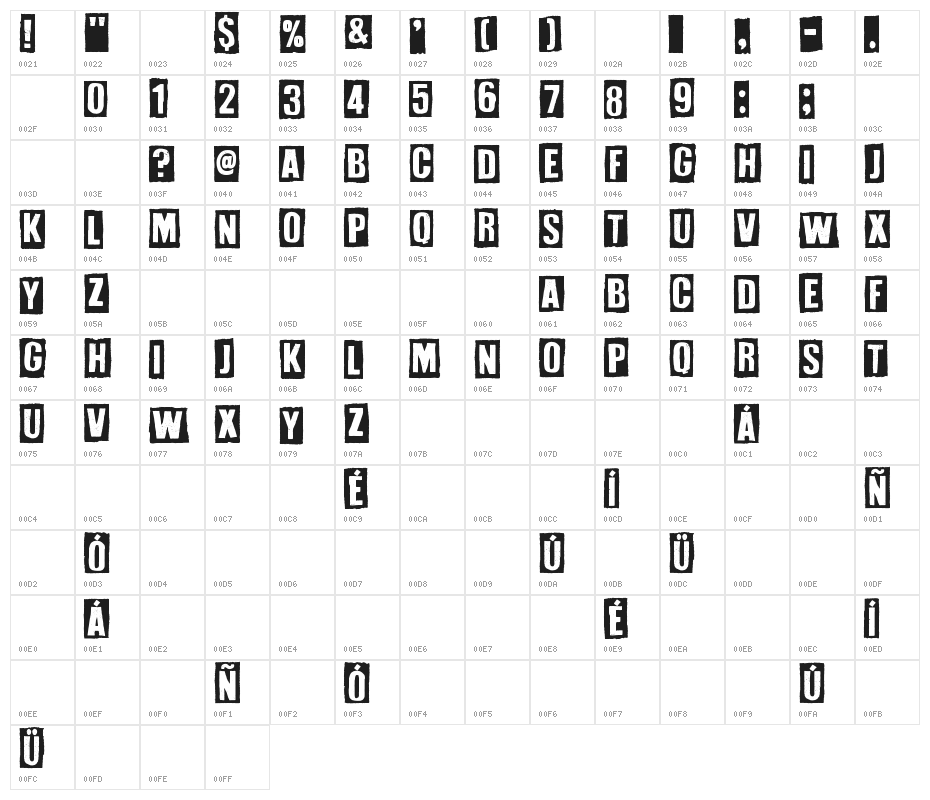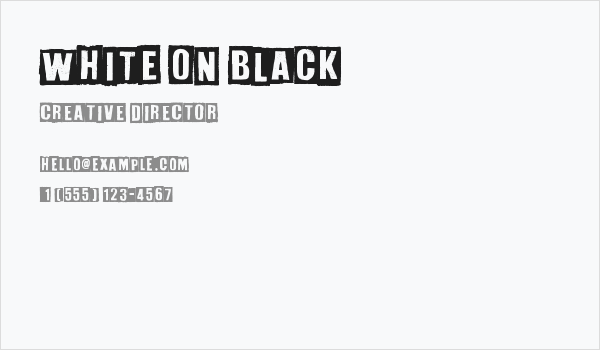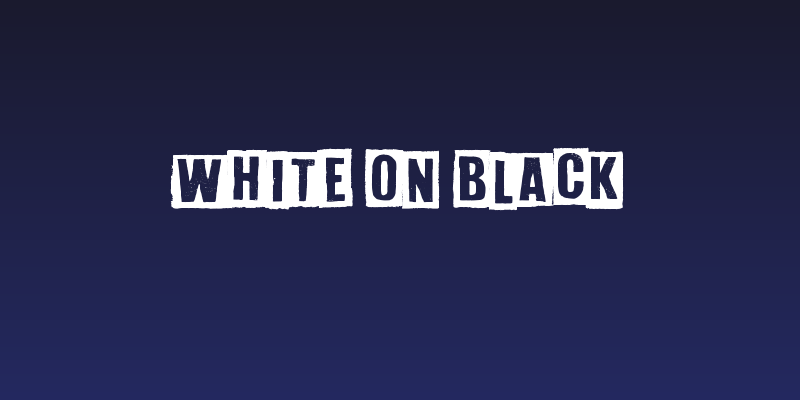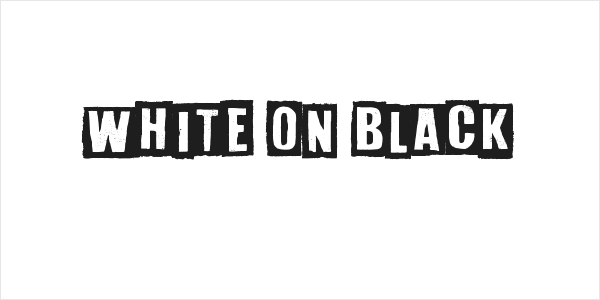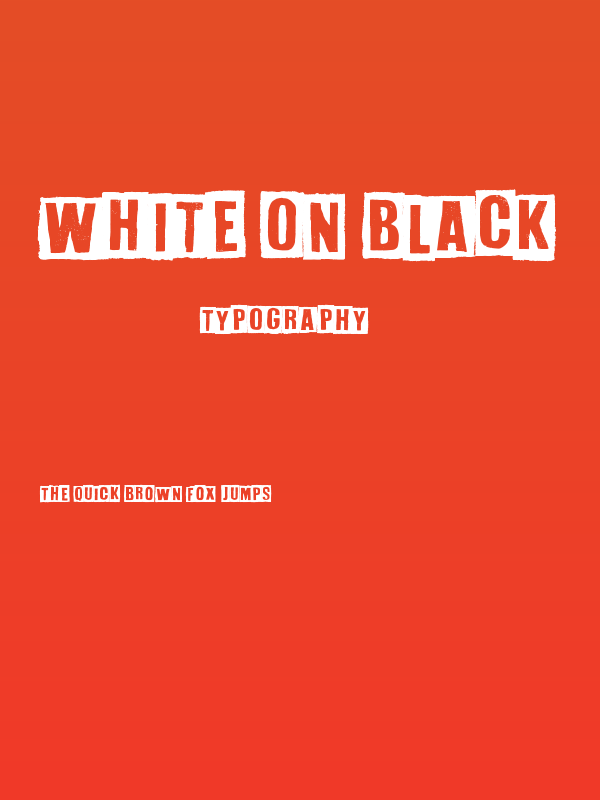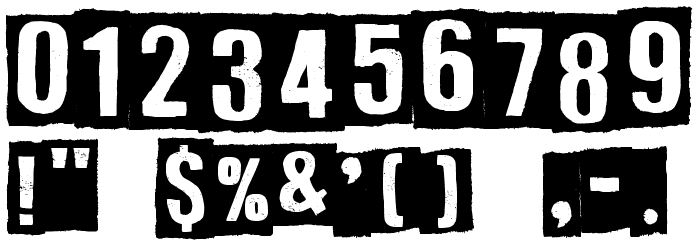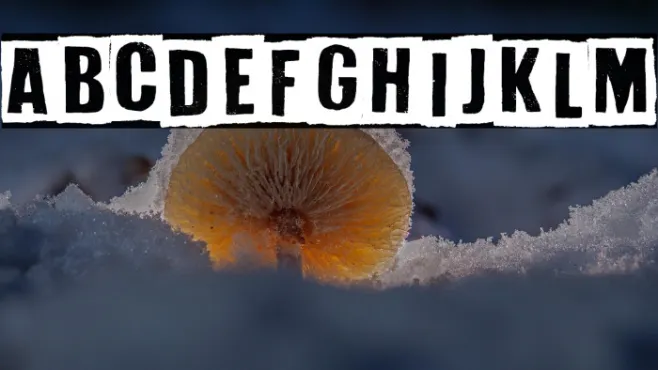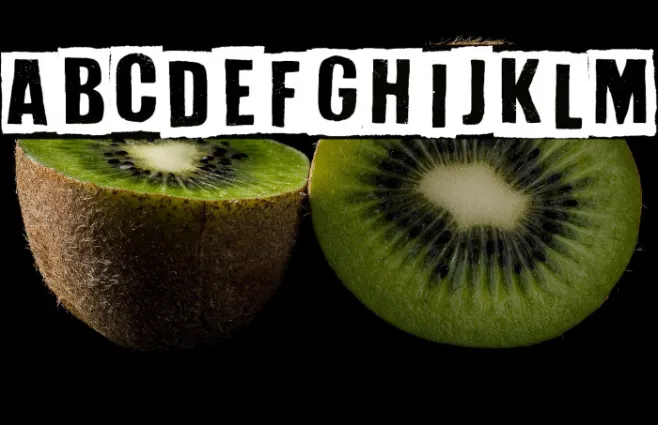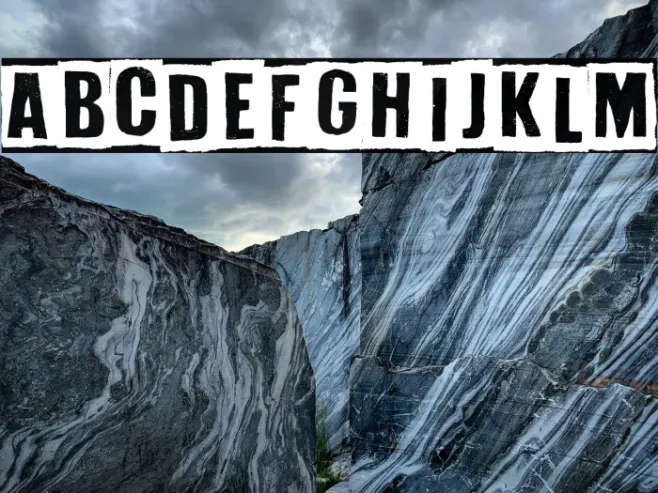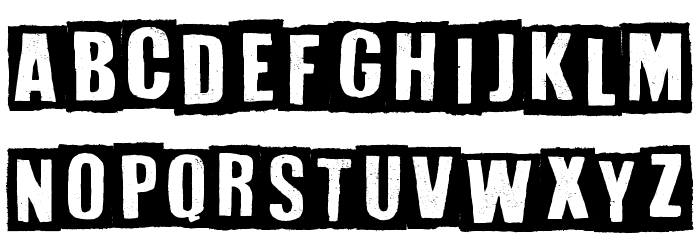
White On Black Font
White On Black Description
This font features a bold, distressed style with a strong, impactful presence. Each character is enclosed within a rectangular black background, creating a striking contrast with the white letters. The edges of the characters are rough and uneven, giving a vintage, worn-out appearance reminiscent of old typewriter or letterpress prints. The uppercase letters are uniform in height, while the numerals and special characters maintain the same bold, distressed aesthetic. This design choice enhances the font's rugged and industrial feel, making it ideal for projects that require a bold statement.
| Proposed Projects | Ideal for posters, album covers, branding for vintage-themed products, or any design needing a bold, rugged aesthetic. |